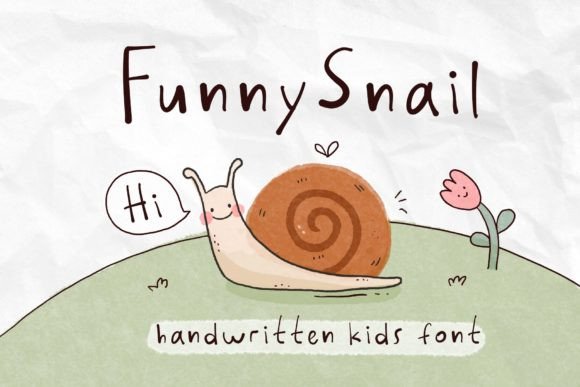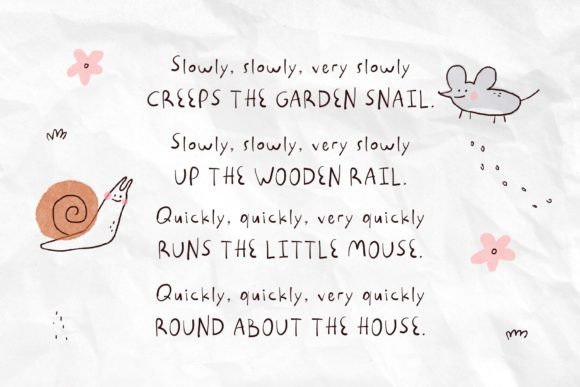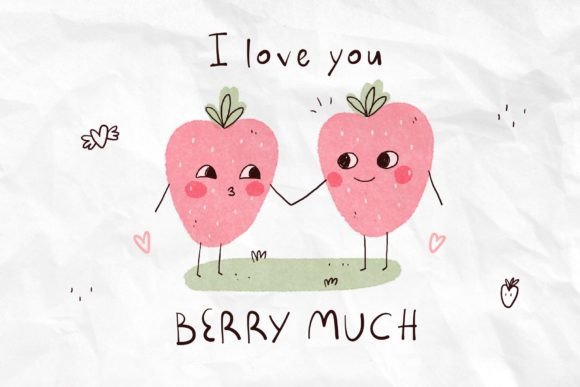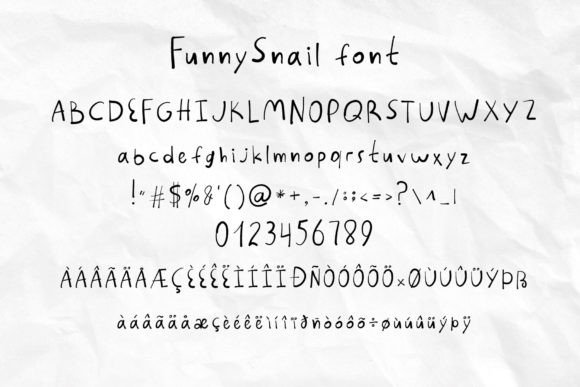
FunnySnail Font: A Cute Handwritten Font for Playful DIY Designs
About the Funnysnail Font
Explore the possibilities with Funnysnail Font, a font that offers both beauty and functionality. FunnySnail is a hand-drawn font in a childish style. It is ideal for decorating books, articles, social networks, T-shirts, interior posters and much more!
FunnySnail’s playful hand-drawn style shines in headlines, short text blocks on posters, and children’s book illustrations. It works exceptionally well for branding projects targeting a young audience or those emphasizing a fun, whimsical feel. Avoid using it for body text or extended paragraphs; its informal nature hinders readability in large quantities.
Consider pairing FunnySnail with a clean sans-serif like Open Sans for a balanced contrast, or a classic serif font like Garamond for a touch of sophistication. For a more playful feel, a rounded geometric sans-serif such as Circle Std would also complement its organic charm.
The font’s overall personality is undeniably cheerful and friendly, making it a strong choice for projects requiring a lighthearted and approachable aesthetic.